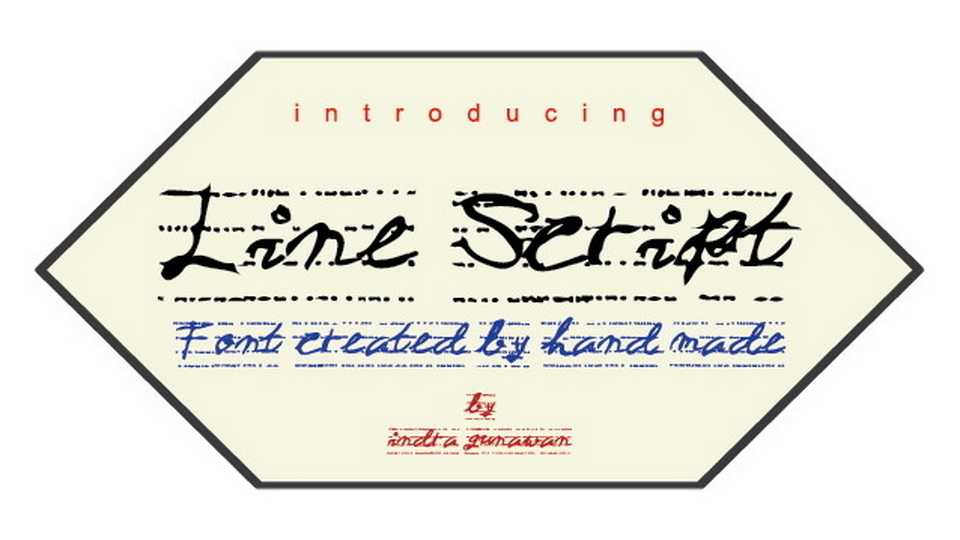
Download Line Script font, an authentic hand drawn typeface with a simple and natural look. Created with care, this font is suitable for informal text messages, notes, quotes, crafts and any project that requires a personal touch.
Designer: Indra Gunawan